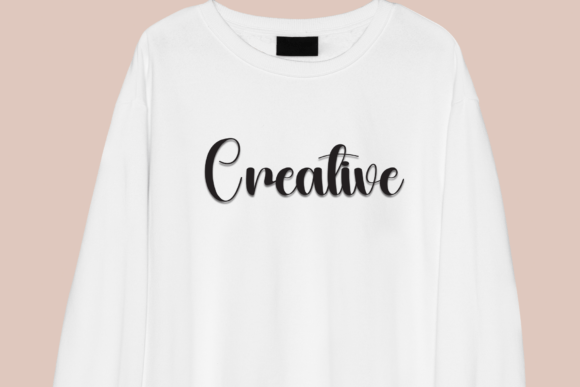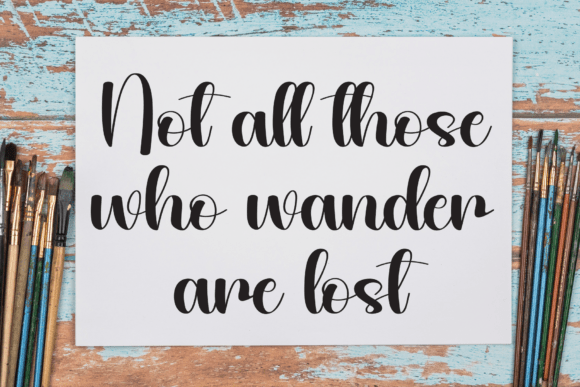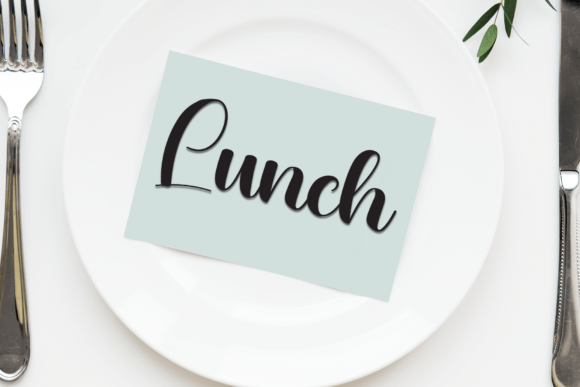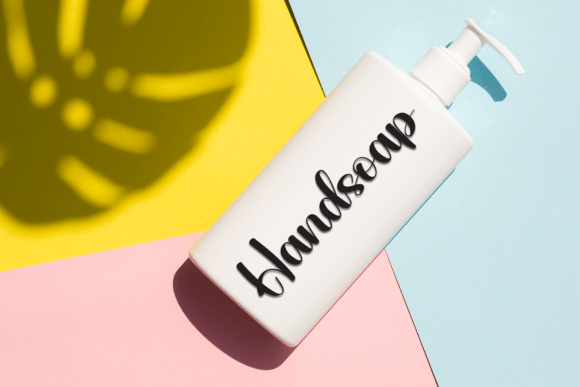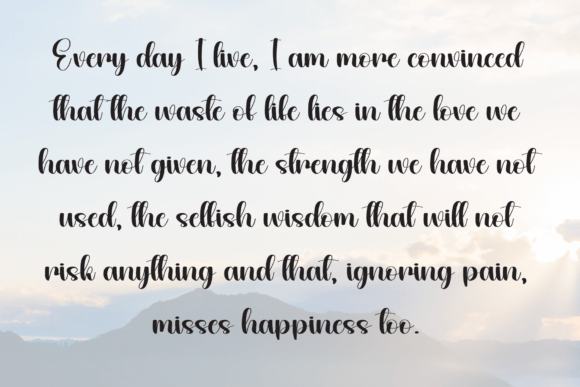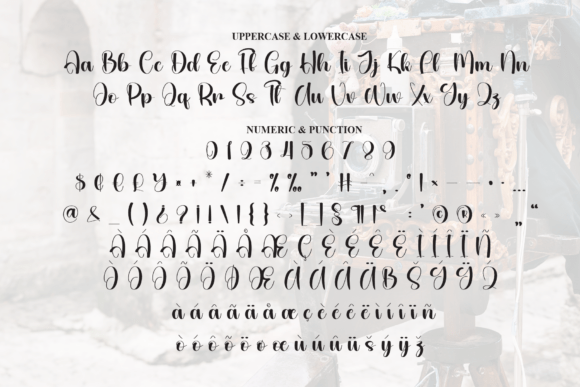
The Charm of Antique Font: A Designer’s Delight
I’ll never forget the time I was working on a wedding invitation project, and my client asked for a font that was “whimsical, yet sophisticated.” I scoured the internet, tried out dozens of fonts, but nothing seemed quite right. That was until I stumbled upon Antique Font. Its charming, handwritten style immediately caught my eye, and I knew I had found the perfect fit. In this article, I’ll share my experience with Antique Font, its features, and how to make the most of it in your design projects.
A Personal Review of Antique Font
Antique Font is a beautiful, handwritten display font that exudes warmth and lightheartedness. Here are some things I love about it:
- ✨ Adorable and lively style that’s perfect for wedding invitations, cards, and other design projects that need a touch of fun
- ✅ Easy to read, even in smaller sizes
- 💕 Unique character set with plenty of personality
- 🎉 Supports OpenType features, glyphs, and stylistic alternates
While Antique Font is an excellent choice for many design projects, it’s not without its quirks. Here are a few things to keep in mind:
- 🤔 Some characters may not work well in very small sizes or at certain resolutions
- ⚠️ Limited support for non-English languages
The Story Behind Antique Font
Antique Font was designed by a team of typographers who wanted to create a font that was both whimsical and sophisticated. Inspired by classic handwritten scripts, they crafted a unique character set that’s both elegant and playful. The result is a font that’s perfect for designers, crafters, and creative hobbyists who want to add a touch of personality to their projects.
| What is Antique Font? | Antique Font is a charming, handwritten display font that’s perfect for wedding invitations, cards, and other design projects that need a touch of fun. |
| Does Antique Font support OpenType features? | Yes, Antique Font supports OpenType features, glyphs, and stylistic alternates. |